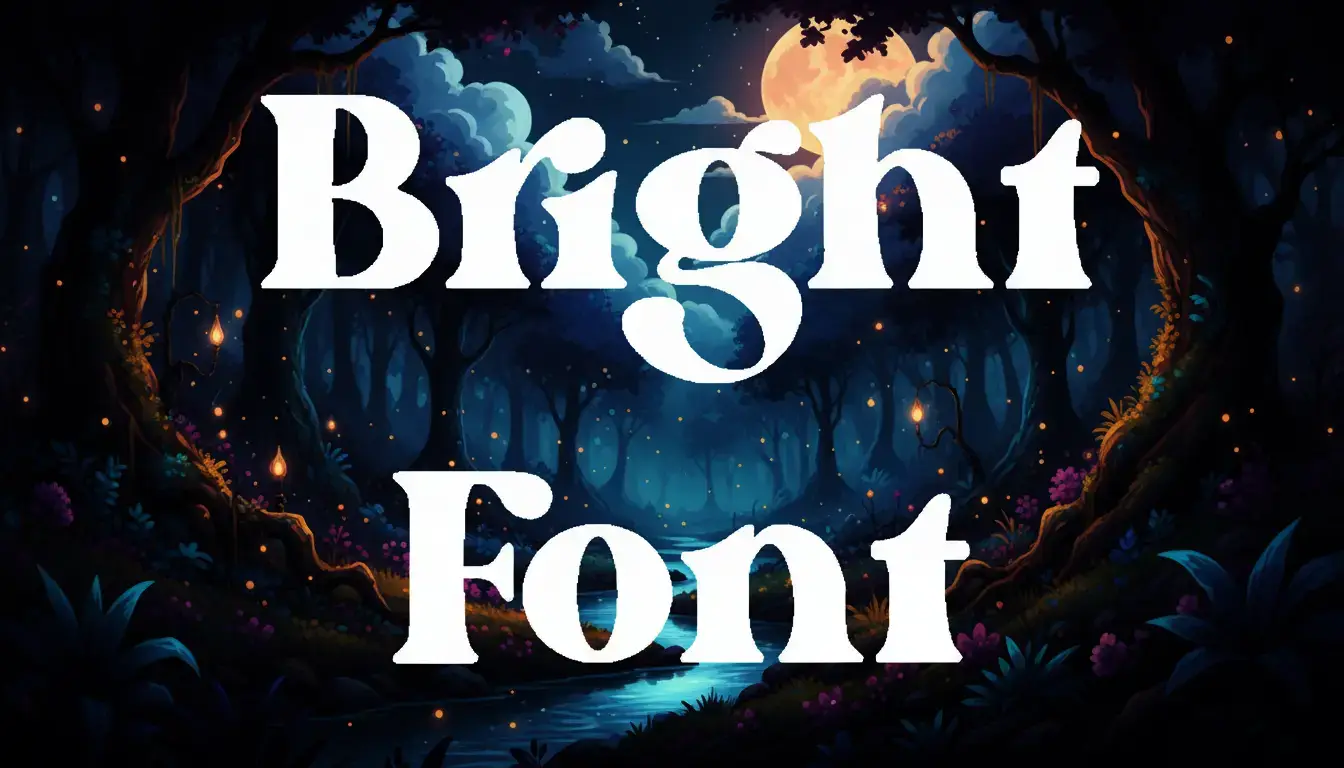
Bright Font
Bright is a fancy font created by Jamaludin Ahmad Sahestya Dharma and released through Dharmas Studio. Bold and full of character, it's built to stand out rather than blend in. You can download it for free and test it with your own words in the preview above.
What You Can Type With Bright
Bright has the full alphabet in upper and lowercase. There are no numbers, so you'll need a second font for dates, prices or phone numbers. Punctuation is limited, so look at the character map if you need a specific symbol. It doesn't include accented letters such as é or ñ, which makes it an English-only font.
Where Bright Works Best
Bright is a natural fit for posters, logos and eye-catching headlines. Use it for one standout word or headline and let simpler fonts handle the rest.
Does Bright support accented letters?
No. Bright has no accented letters such as é, ñ or ü, so it's best for English text.